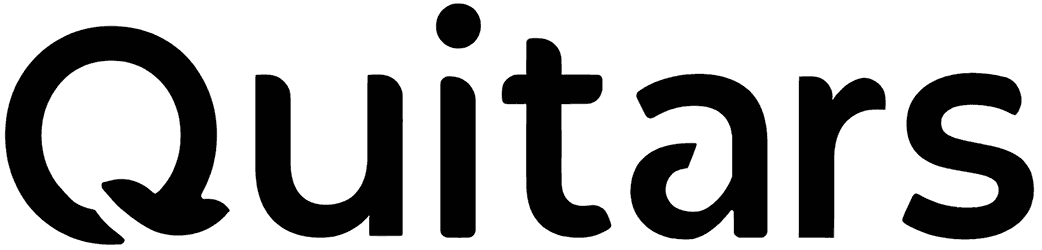
Quitars Font
A simple approach seems to work best for Quitars as a modern font that’s so popular among people. So the thing that makes it so eye-pleasing is the same as what makes it so easy to comprehend, a casual style. Nothing too fancy or serious!
When you get your hands on Quitars and any other music font, you’ll be able to make up for all the thrill missing from your movie posters, digital advertising campaigns, musical instrument shop logos, etc.
Quitars is perfect for a modern look. It has a casual feel in an otherwise modern typeface and is perfect for adding personality to your designs.